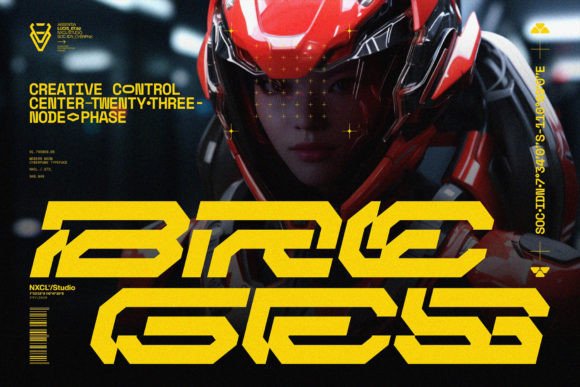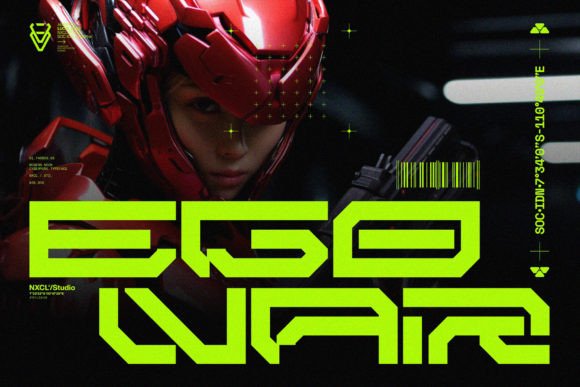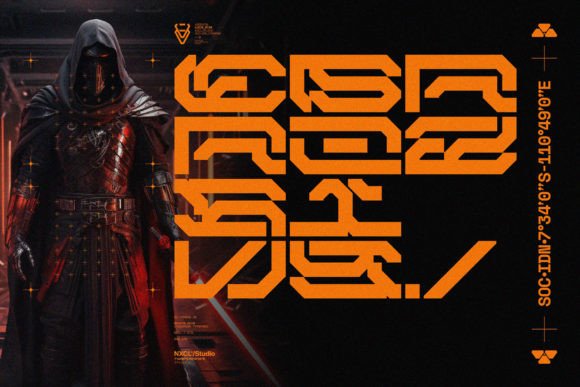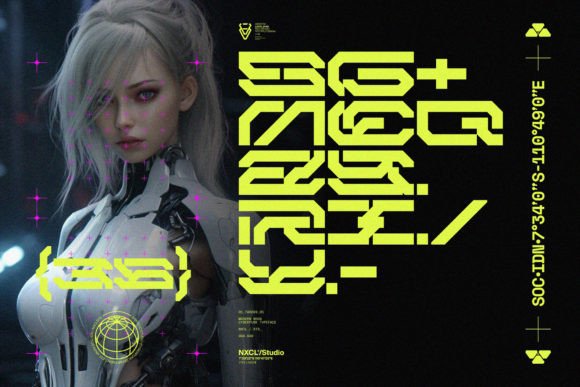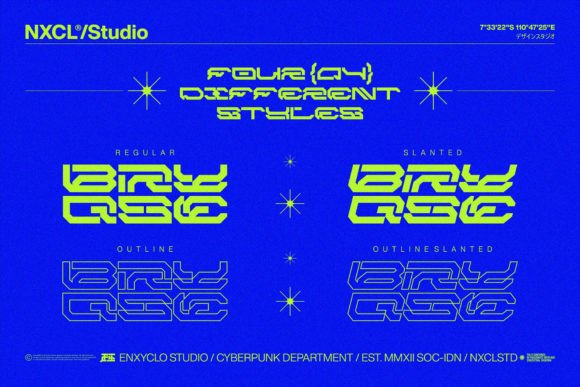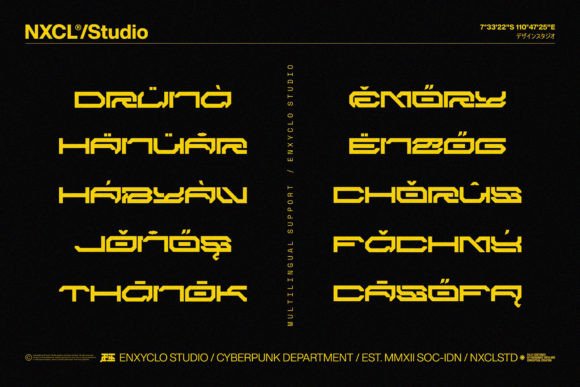
Brayqose Font: Elevate Your Designs with a Modern Cyberpunk Twist
In the realm of typography, fonts play a pivotal role in shaping the visual identity of a design. Among the myriad of fonts available, one that stands out for its modern cyberpunk aesthetic is the Brayqose Font, also known as NCL BRAYQOSE. This font is not your ordinary typeface; it’s a futuristic techno mecha font designed to catapult your creativity into new dimensions. Whether you’re a designer, a craftsperson, or simply someone who appreciates the nuances of typography, Brayqose Font is a game-changer.
The Essence of Brayqose Font
NCL BRAYQOSE embodies the spirit of modern cyberpunk, bringing a futuristic vibe to the world of typography. Its design is inspired by the sleek lines, metallic surfaces, and neon lights characteristic of cyberpunk landscapes. This font is perfect for projects that demand a cutting-edge look, such as tech startups, futuristic gaming platforms, or innovative product designs.
Key Features of Brayqose Font
- Modern Cyberpunk Aesthetic: The Brayqose Font boasts a design that is distinctly cyberpunk, making it ideal for projects that require a modern, edgy look.
- Versatility: This font is incredibly versatile, suitable for a wide range of projects including websites, posters, logos, and more.
- High Readability: Despite its futuristic design, Brayqose Font maintains high readability, ensuring that your message is conveyed effectively.
- Customization Options: Being a digital font, Brayqose offers ample opportunities for customization, allowing designers to tweak and adjust it according to their project’s needs.
Applications of Brayqose Font
The applications of Brayqose Font are vast and varied. Here are a few examples of how you can utilize this futuristic font:
- Web Design: Use Brayqose Font for website headers, to instantly give your site a modern and tech-savvy look.
- Graphic Design: Add a futuristic touch to your posters, flyers, and brochures, making them stand out in a crowded space.
- Branding and Logo Design: A unique logo can make your brand memorable. Brayqose Font can help create a logo that embodies innovation and forward-thinking.
- Digital Media: From YouTube videos to digital magazines, Brayqose Font can enhance the visual appeal of your digital content.
Why Choose Brayqose Font?
In a world where design trends are constantly evolving, having a font that can keep up with these changes is invaluable. Brayqose Font offers:
- Uniqueness: Stand out from the crowd with a font that is both unique and memorable.
- Flexibility: Its versatility means it can be used across various platforms and projects.
- Future-Proof: With its modern cyberpunk aesthetic, Brayqose Font is likely to remain relevant for years to come.
NCL BRAYQOSE, or Brayqose Font, is more than just a typeface; it’s a design statement. Its modern cyberpunk, futuristic techno mecha aesthetic brings an unparalleled level of sophistication and innovation to any project. Whether you’re looking to revamp your brand’s visual identity, create a stunning website, or simply experiment with new design elements, Brayqose Font is an exceptional choice. Embrace the future of design with Brayqose Font and take your creativity to new heights.
With Brayqose Font, the possibilities are endless. Dive into the world of cyberpunk typography and discover a new realm of design possibilities.